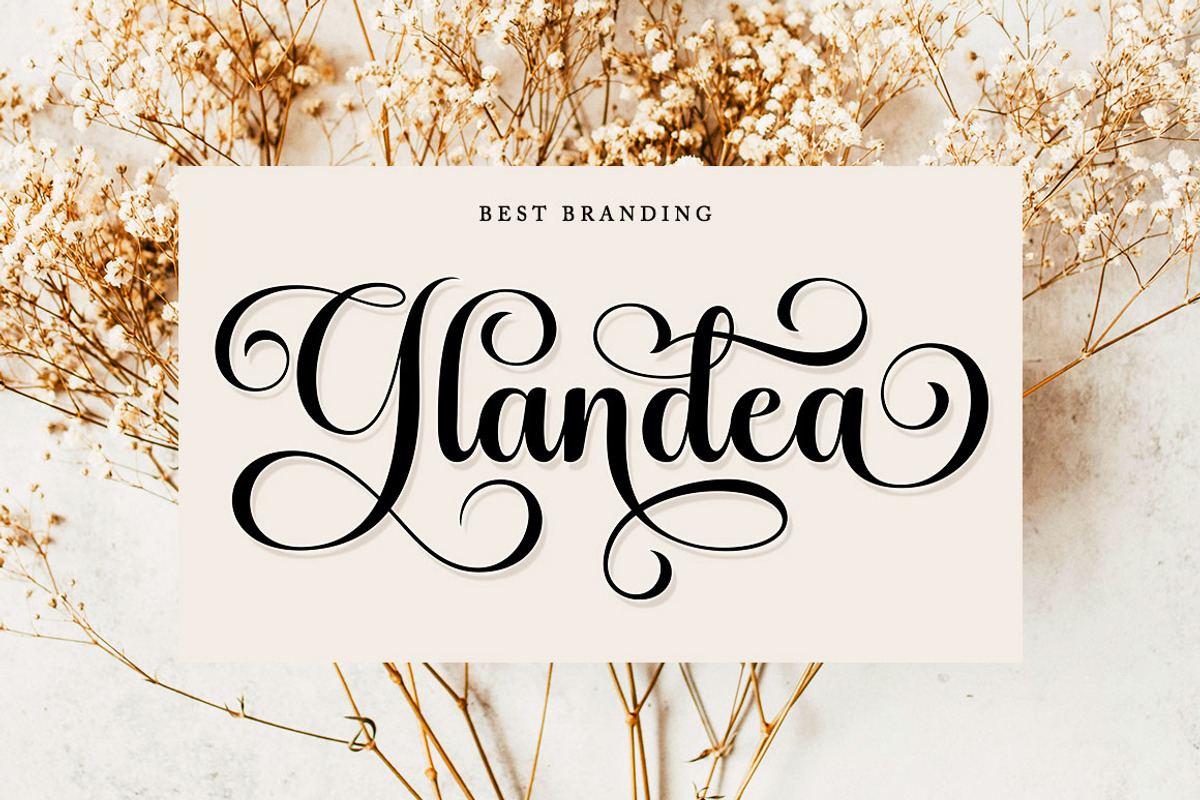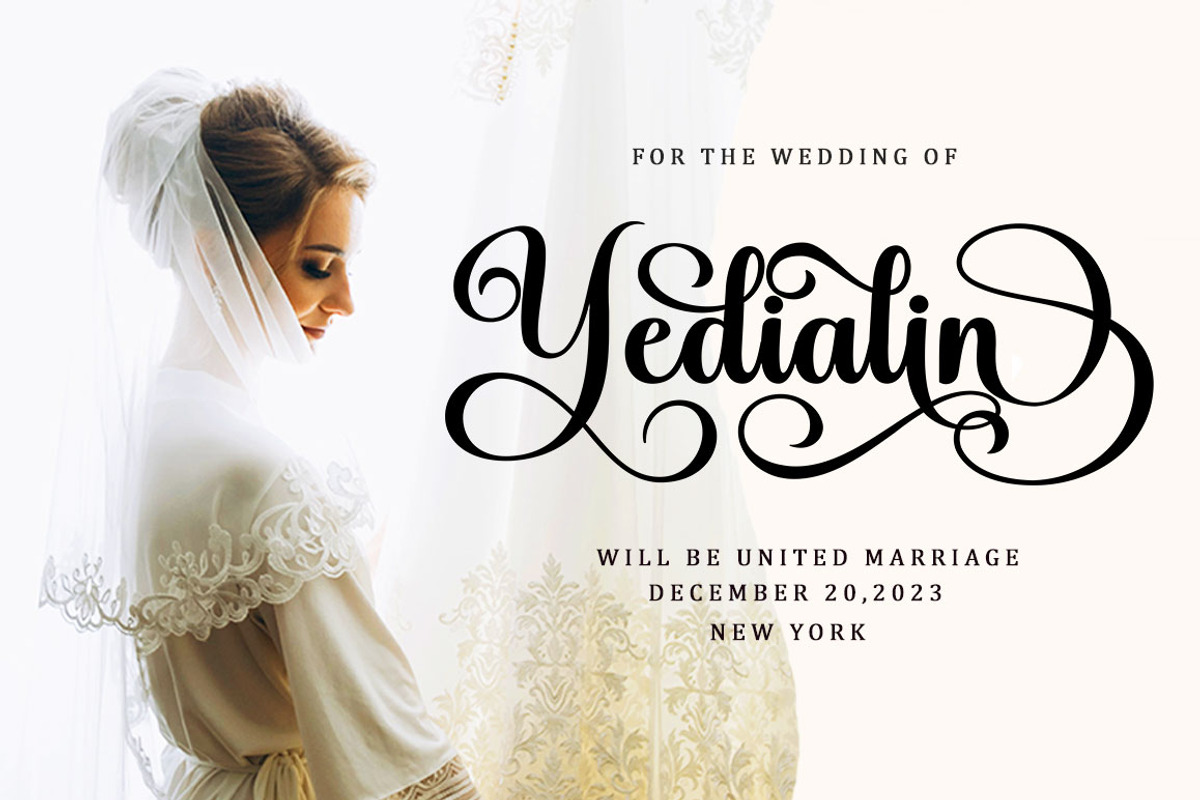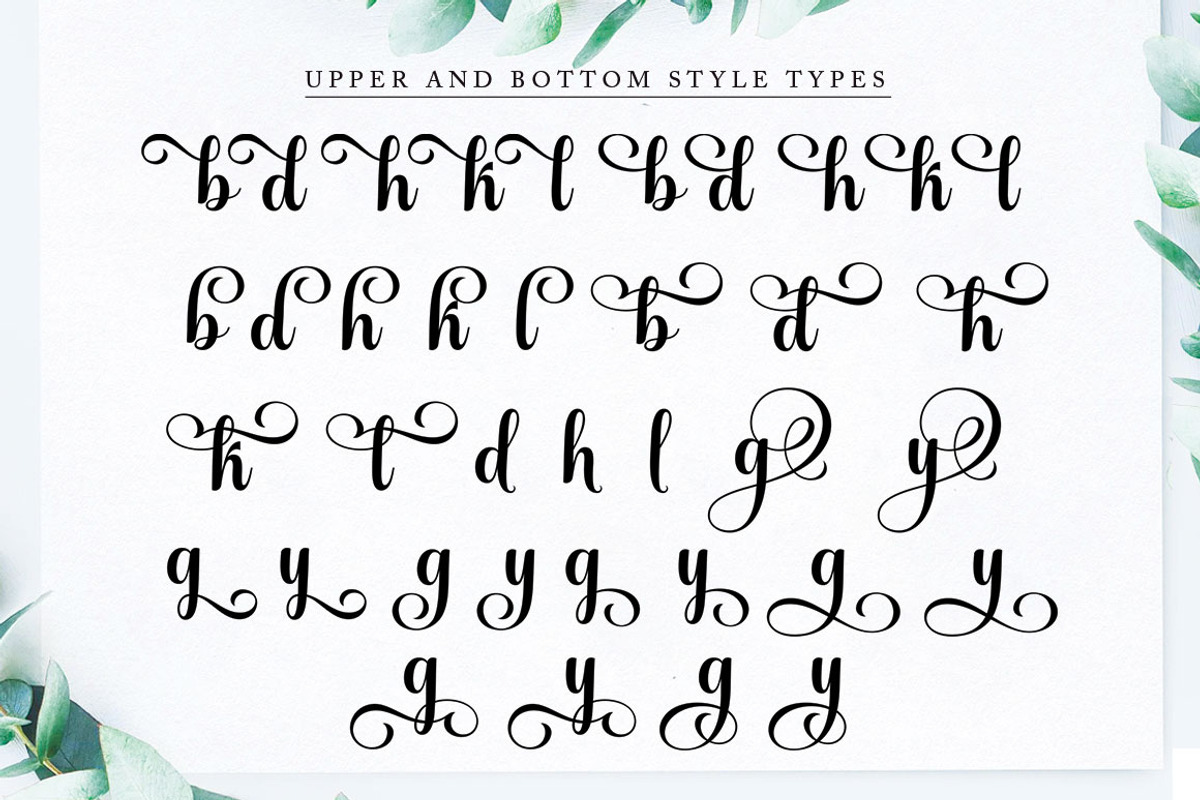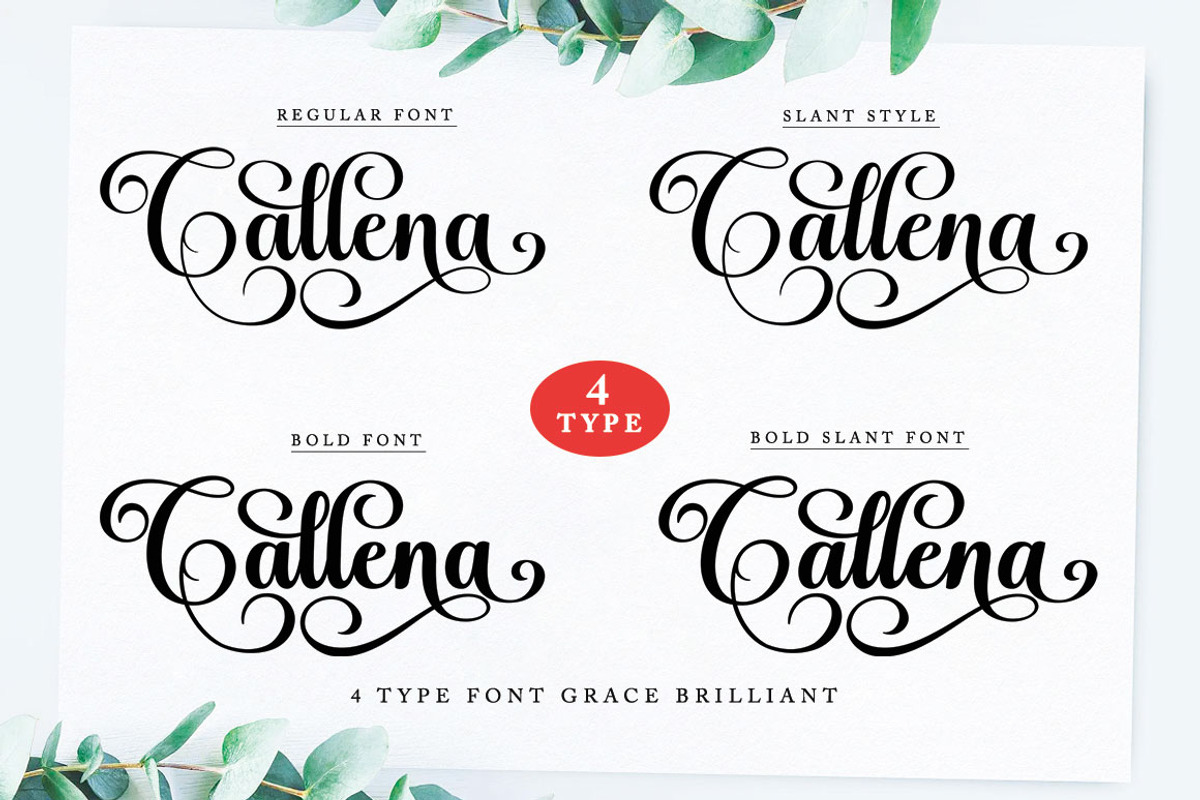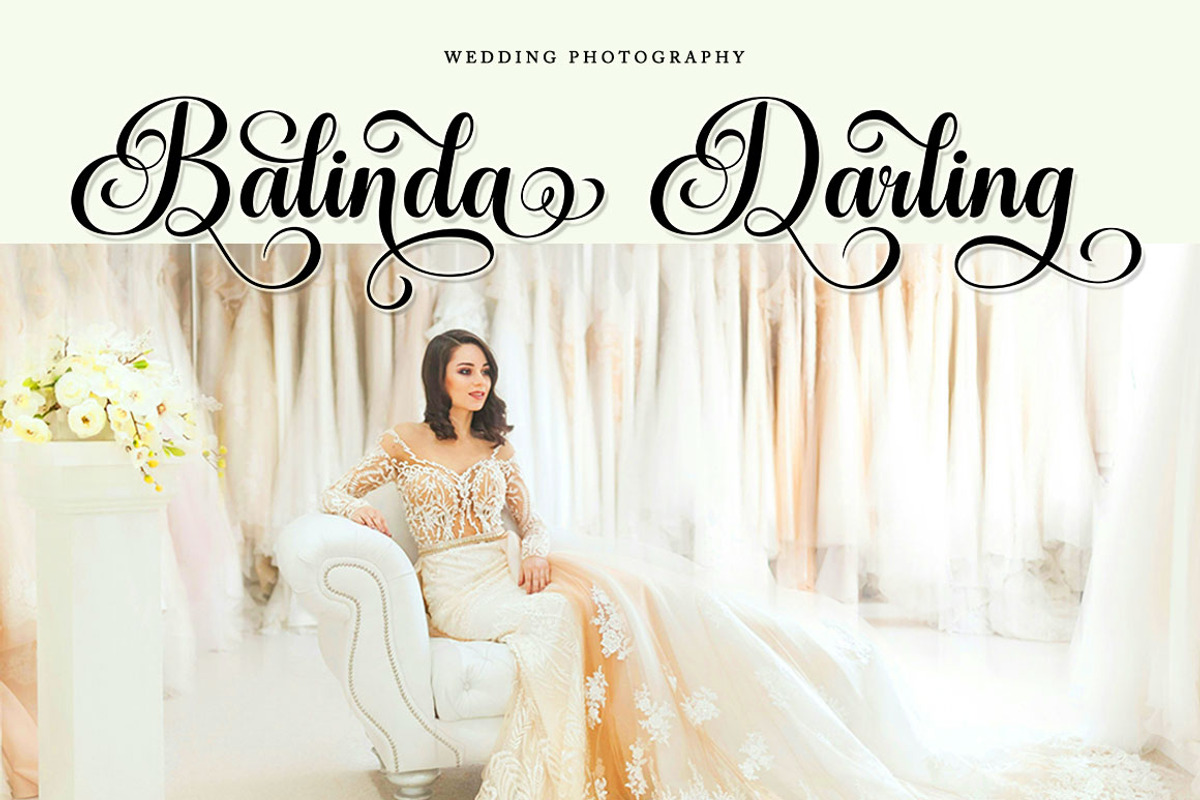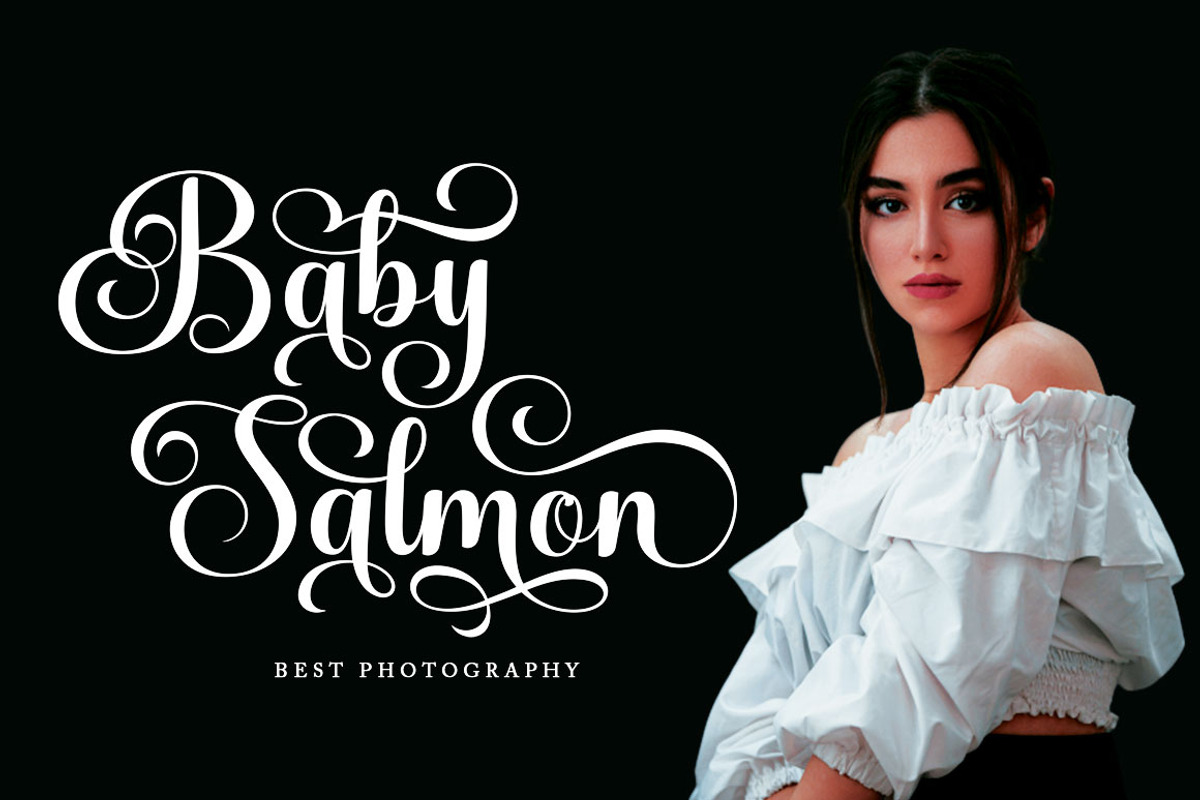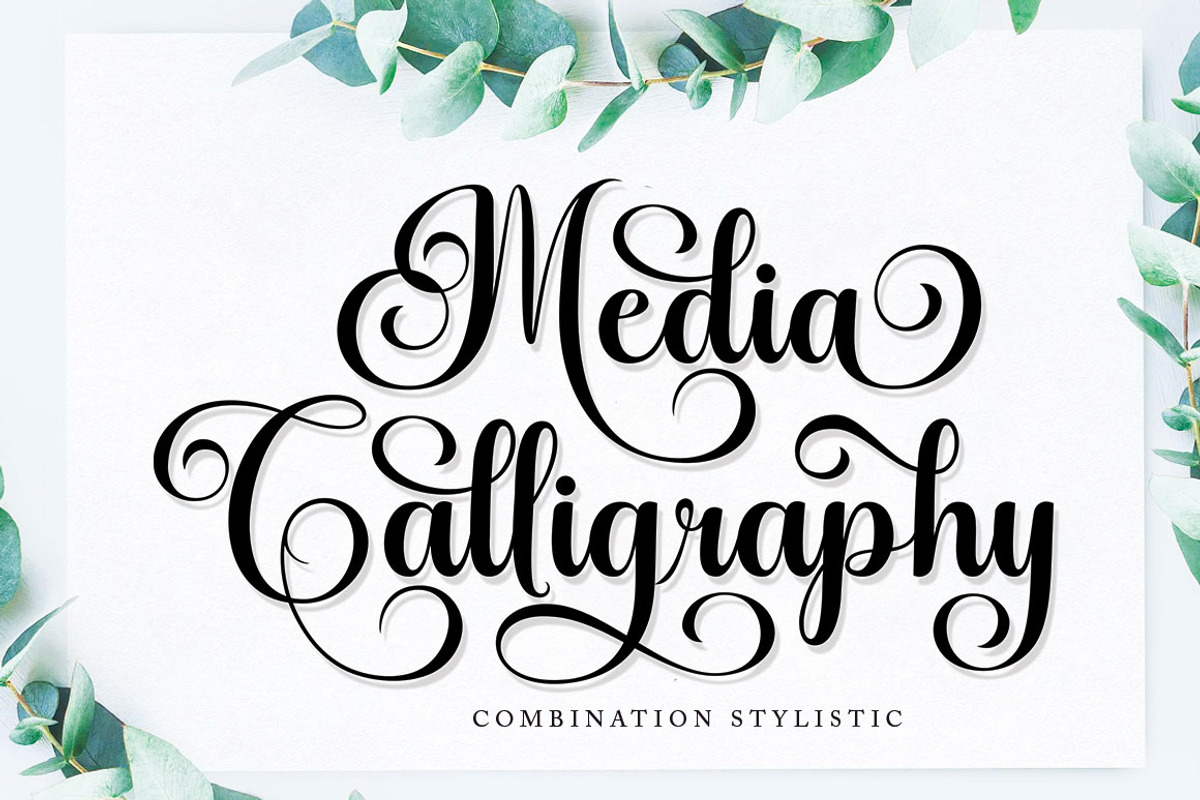
Grace Brilliant Script Font
Brilliant Grace is a very elegant, beautiful and cute script fon, elegant and unique handwritten font. Expertly designed to be a true favourite, this font has the potential to take your creative ideas to the highest level!
Brilliant Grace is attractive because it is sleek, clean, feminine, sensual, glamorous, simple and very easy to read, thanks to its many luxurious letter connections. I also offer a decent number of style alternatives for all letters. Classic style is very suitable to be applied in various formal forms such as invitations, labels, restaurant menus, logos, fashion, make up, stationery, novels, magazines, books, greeting/wedding cards, packaging, labels or all kinds of advertisements. for your purposes. . . . . .
Grace Brilliant Script Font by Bungletter fits naturally into Branding, posters, packaging, typography.